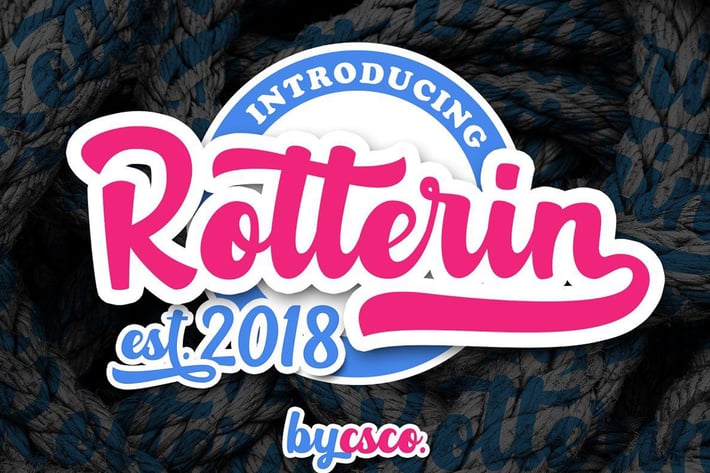
Rotterin Script - Layered Font
Introducing New Font : Rotterin Script - Layered Font
Rotterin is layered script font, Rotterin is suitable for cricut sticker, Logo, greeting cards, quotes, sticker, posters, branding, name card, stationary, design title, blog header, art quote, typography art, modern envelope lettering or book design.
Rotterin also suitable for happening style like handdrawn design or watercolor design theme, craft design, any DIY project, book title, wedding font, pop vintage design, or any purpose to make our art/design project look pretty and trendy.
1. Upper Case & Lowercase
2. Ligatures & Stylistic Alternates
3. Standard Ligatures
4. Numerals & Punctuations (OpenType Standard)